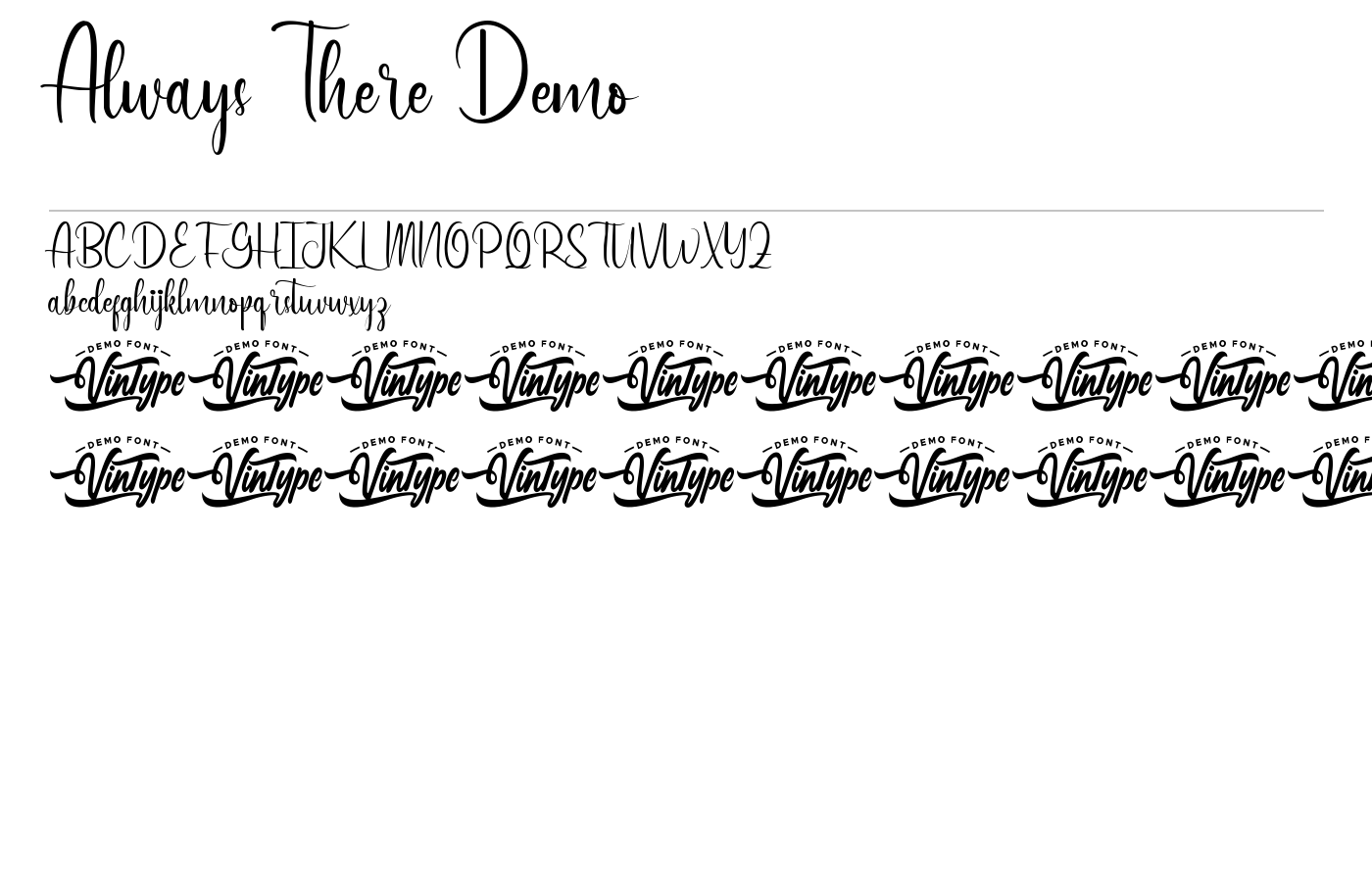
Always There Demo is a delicate, handwritten script font with tall, slender letterforms and smooth, flowing strokes that convey a sense of elegance and friendliness. Its light weight and narrow width give it an airy, stylish feel, perfect for branding, invitations, or any design aiming for a personal and graceful touch. This font shines in creative projects that seek a modern yet approachable handwritten charm.
Always There Demo Font
About Always There Demo Font